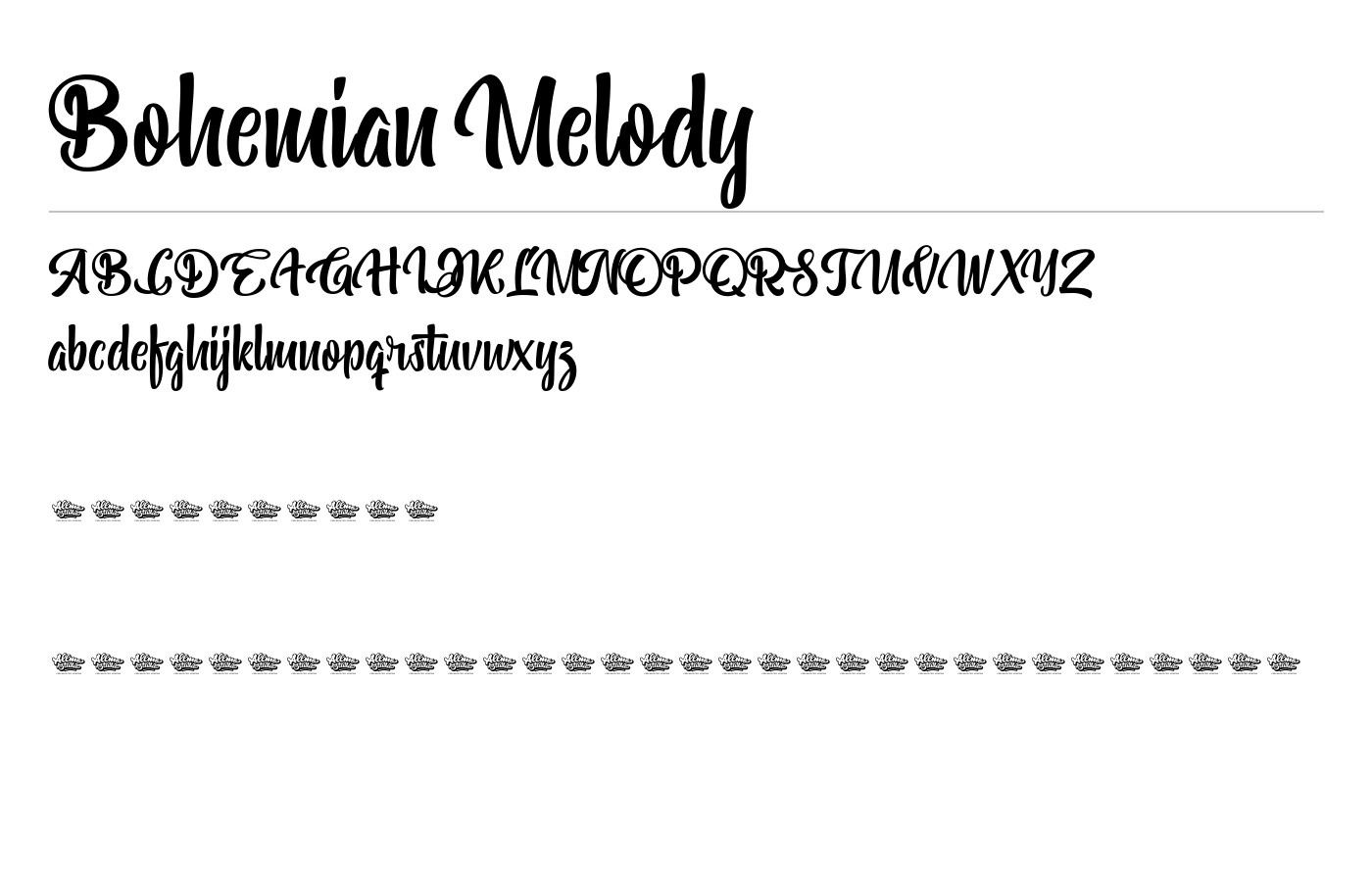
Bohemian Melody is a lively script font with a bold, hand-lettered style that combines playful curves and smooth strokes, giving it a friendly and artistic feel. Its upright, casual letterforms with distinct loops and swashes make it perfect for creative branding, invitations, and packaging that aim to evoke a warm, cheerful, and bohemian vibe. This font works best for headlines and logos where a spirited and personal touch is desired.
Bohemian Melody Font
About Bohemian Melody Font